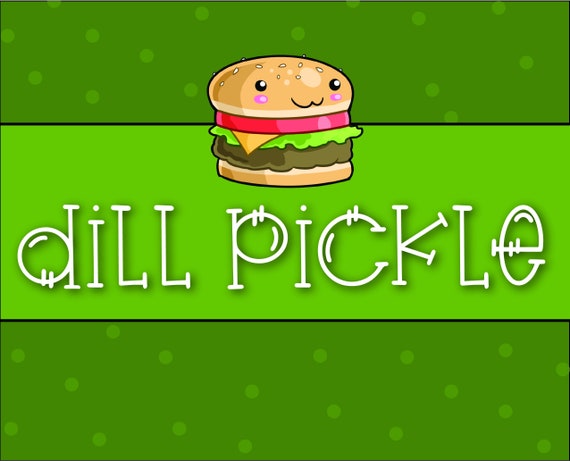
Dill Pickle Serif Font, Round Serif Font, Handwritten Serif Font, Font for Commercial Use
Introducing Dill Pickle! A playful, fun handwritten skinny serif font. Dill Pickle includes basic Latin and provides multilingual support with accented characters for Western European users. This snappy handwritten font is perfect for crafts from summertime to Christmastime.